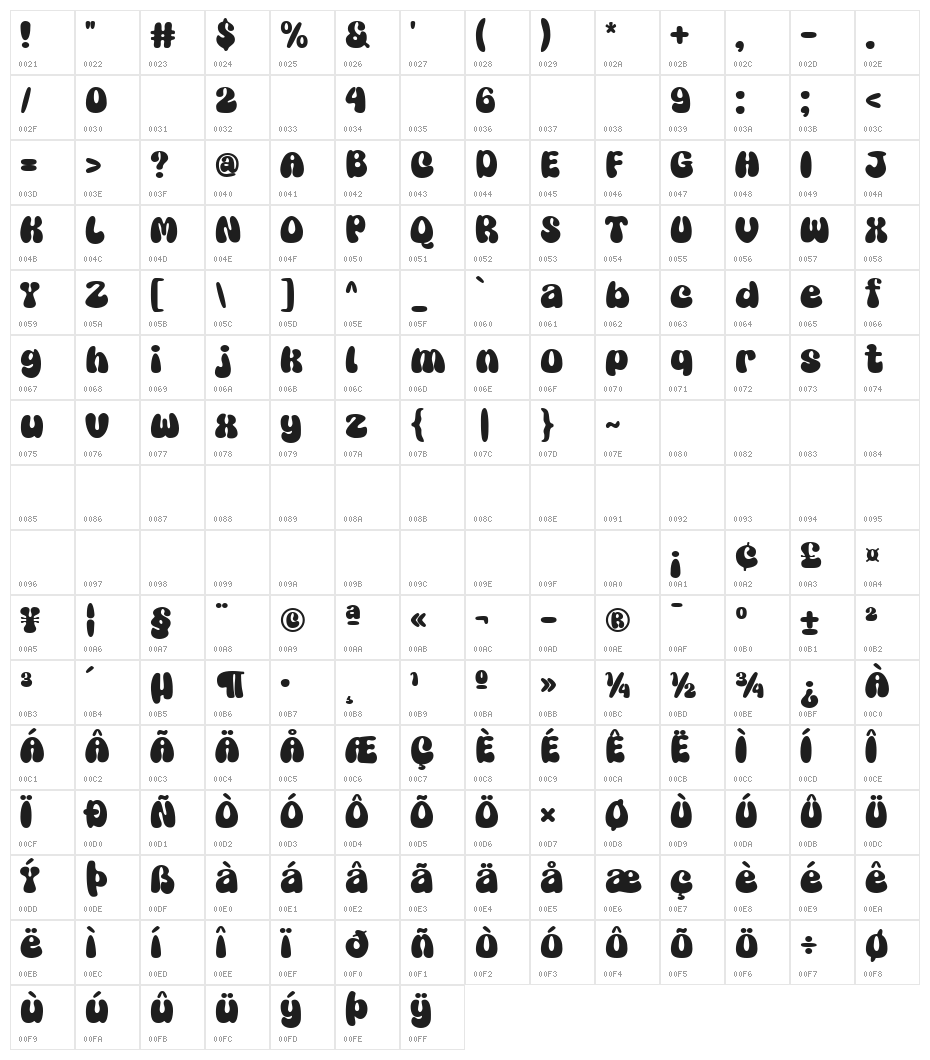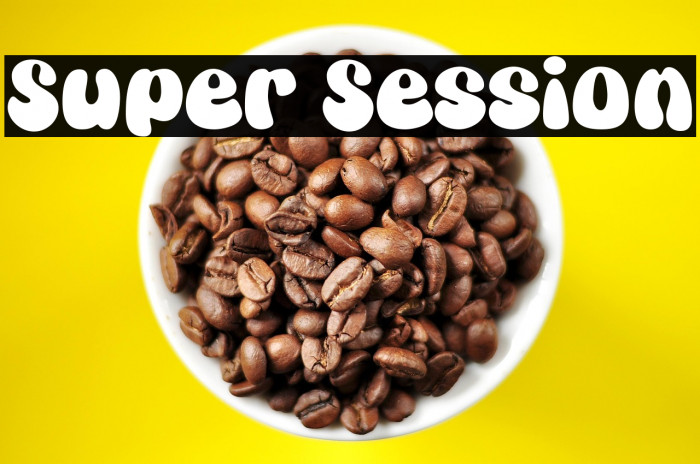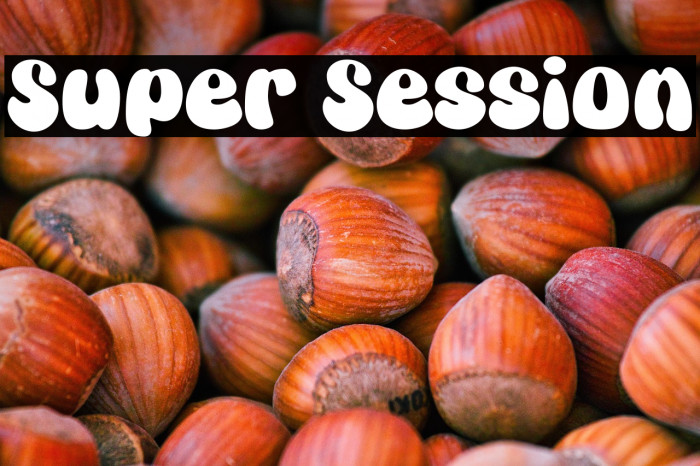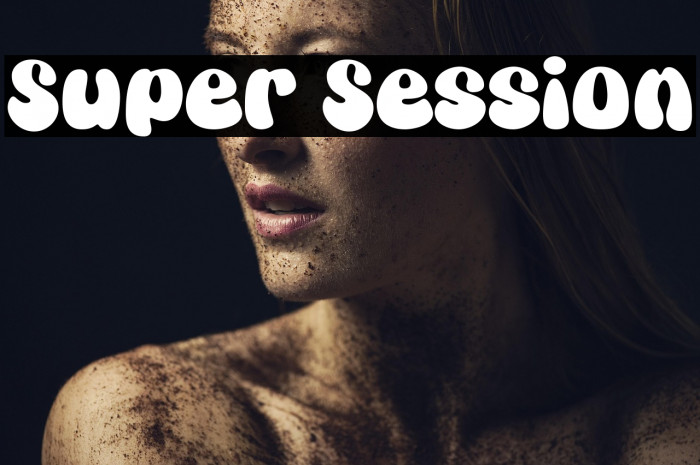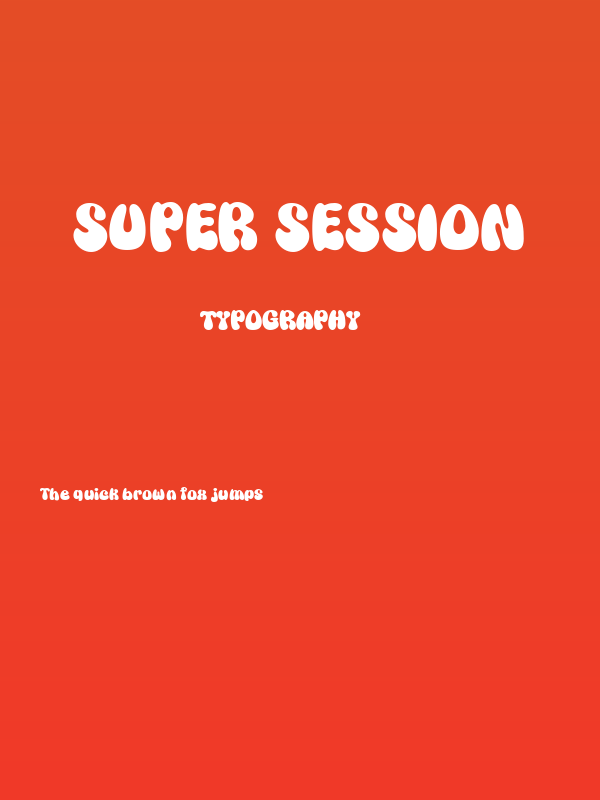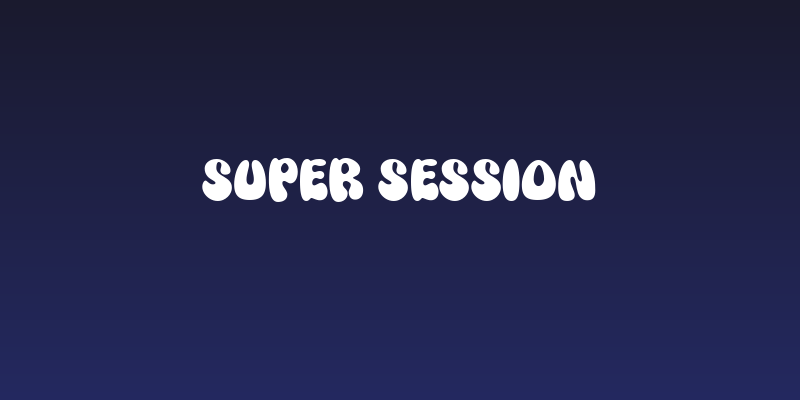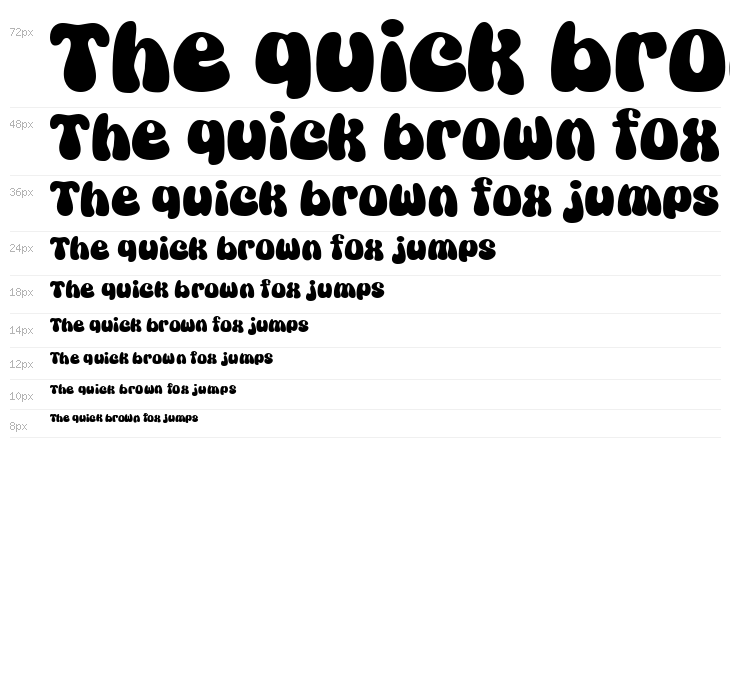
Super Session Font
Super Session Description
This font features a bold and playful design with rounded, bubble-like characters that exude a sense of fun and whimsy. The letters are thick and substantial, creating a strong visual impact. The overall style is reminiscent of retro or vintage aesthetics, with a modern twist that makes it suitable for contemporary designs. The characters are evenly spaced, contributing to a balanced and cohesive appearance. This font is ideal for projects that require a touch of creativity and boldness, such as children's book covers, playful branding, or eye-catching headlines.
Overall StylePlayful, Retro, Modern
Use CaseHeadlines, Logos, Posters
Proposed ProjectsChildren's books, playful branding, eye-catching headlines, posters, and creative invitations.